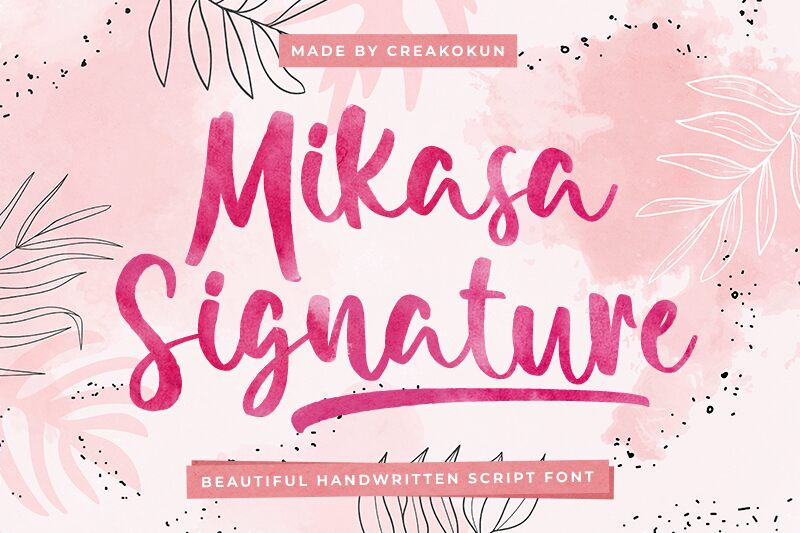
Introducing Mikasa Signature - a unique and creative handwritten signature font designed by M Arif Dwi Prasetyo & Eko Nurcahyo. Perfect for crafting invitations, scrapbooking, logos, branding or other creative projects requiring a personal touch.
Mikasa Signature